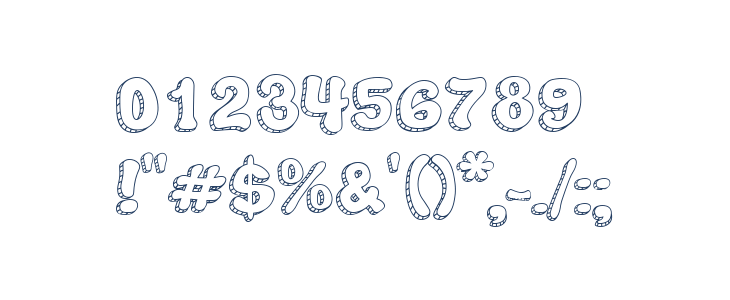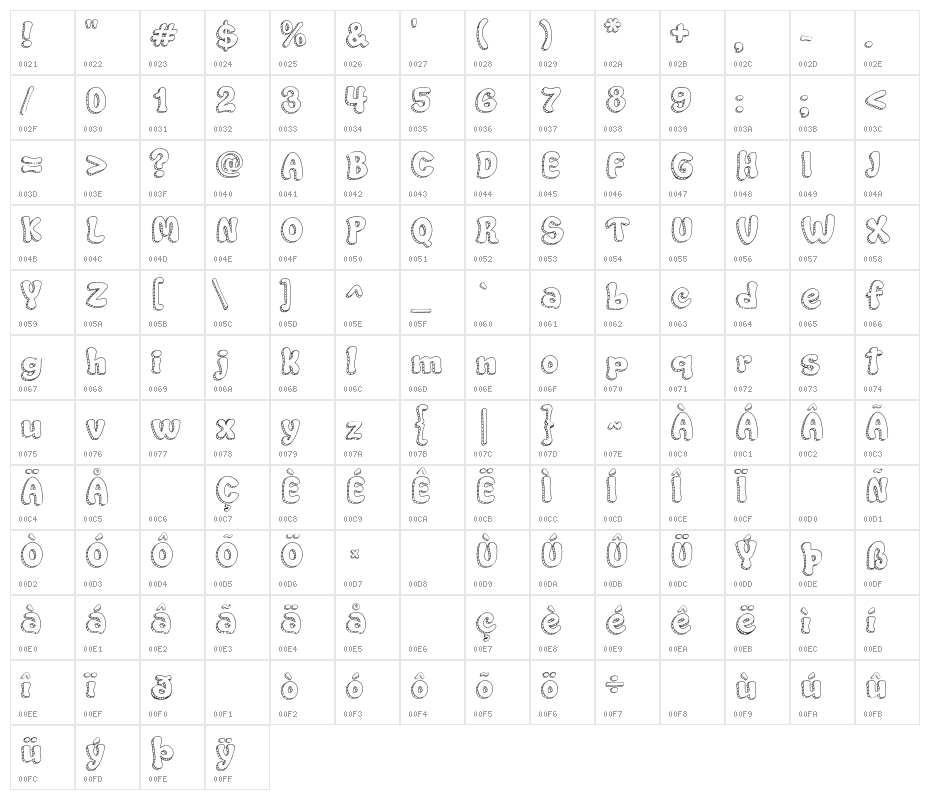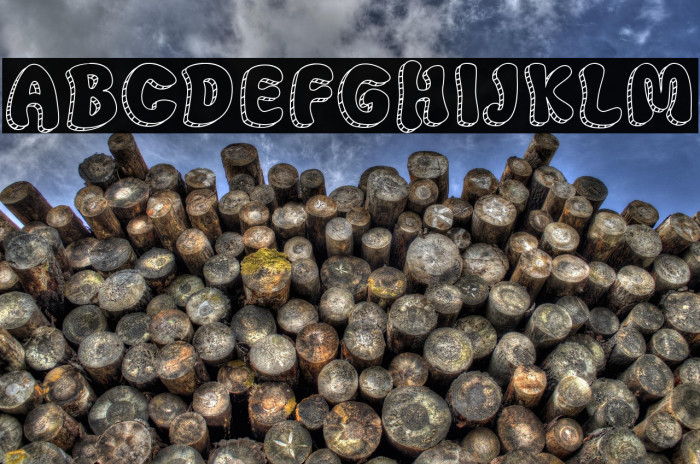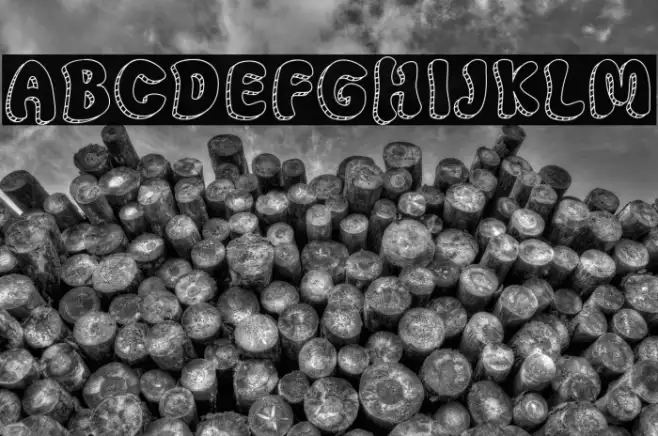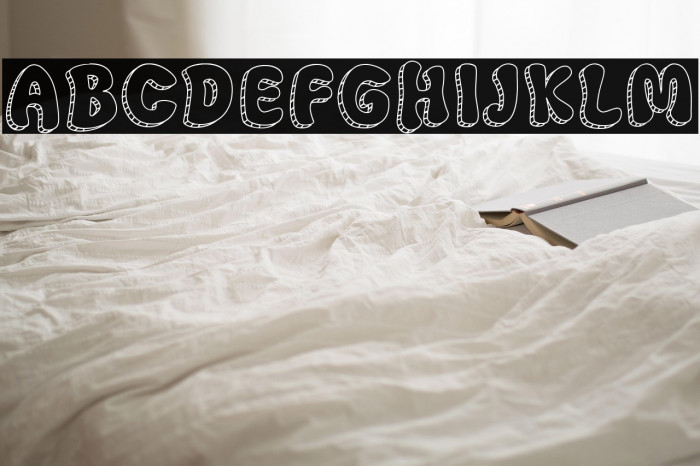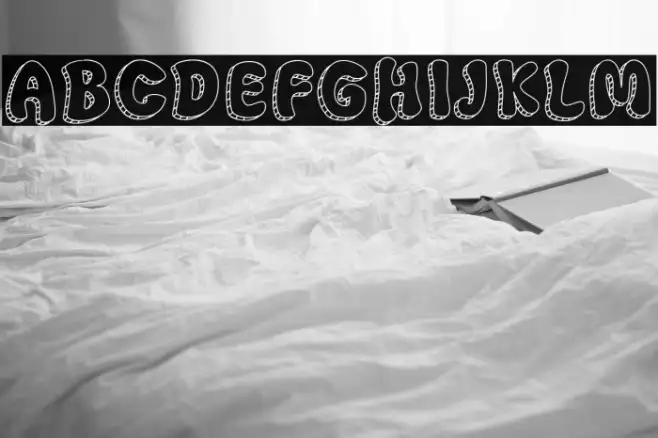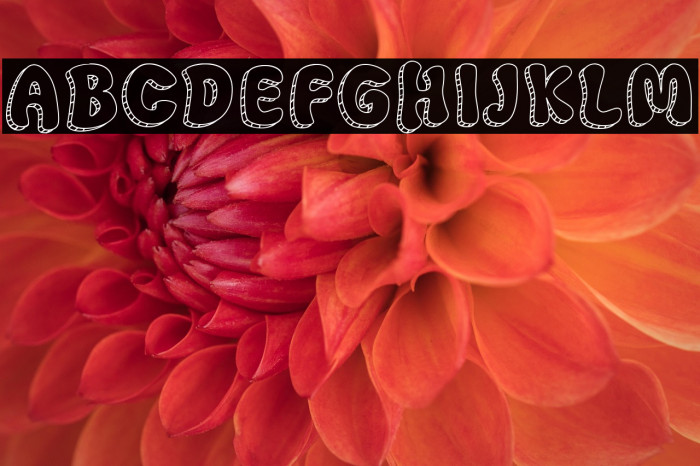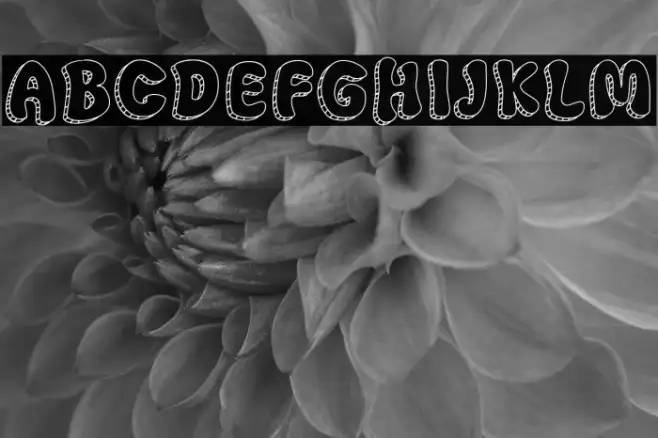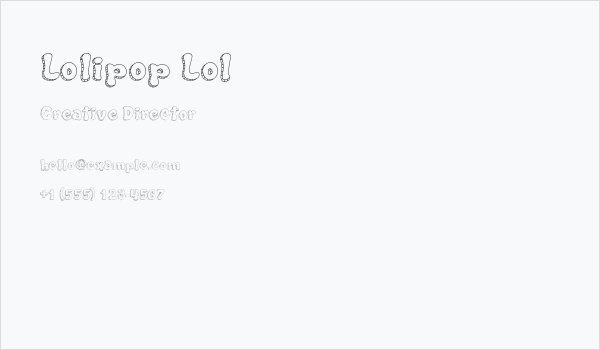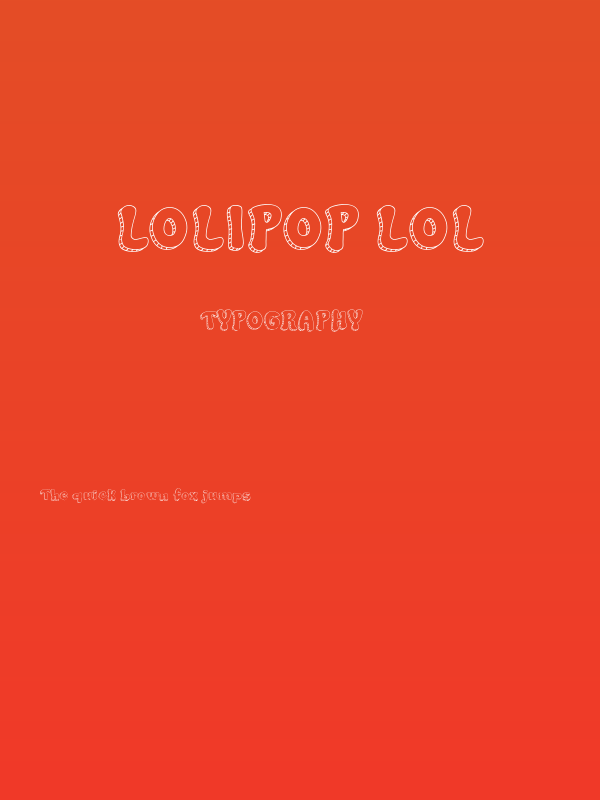
Lolipop Lol Font
Lolipop Lol Description
This playful and whimsical font features a bold, bubble-like design with a hand-drawn aesthetic. Each character is outlined with a thick, consistent stroke, giving it a cartoonish and fun appearance. The letters are filled with a pattern that resembles a candy stripe, enhancing its playful nature. The font maintains a consistent height and width across all characters, providing a uniform look. Its unique style makes it stand out, perfect for projects that require a touch of creativity and fun.
| Proposed Projects | Ideal for children's books, party invitations, playful branding, and any project needing a fun, whimsical touch. |